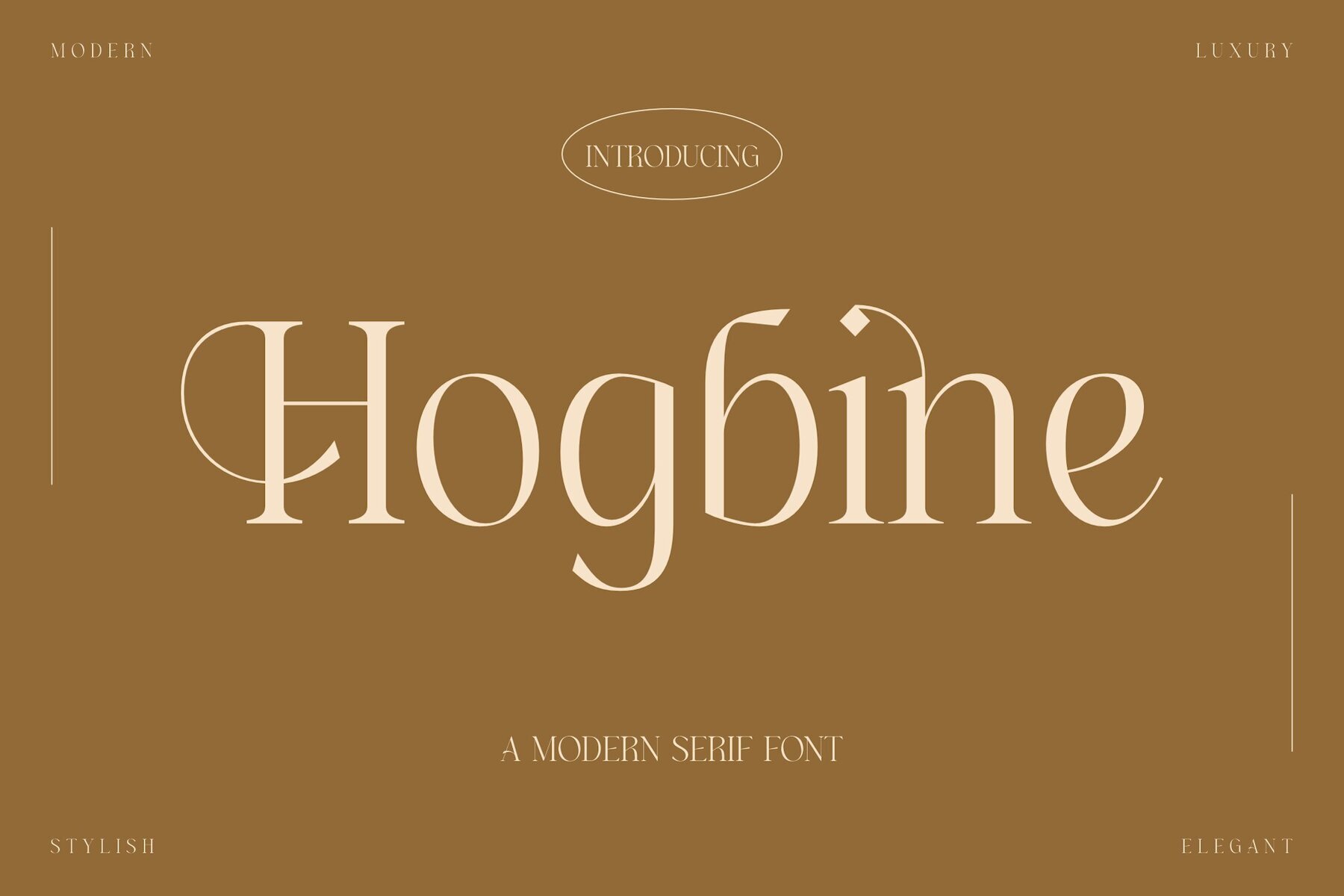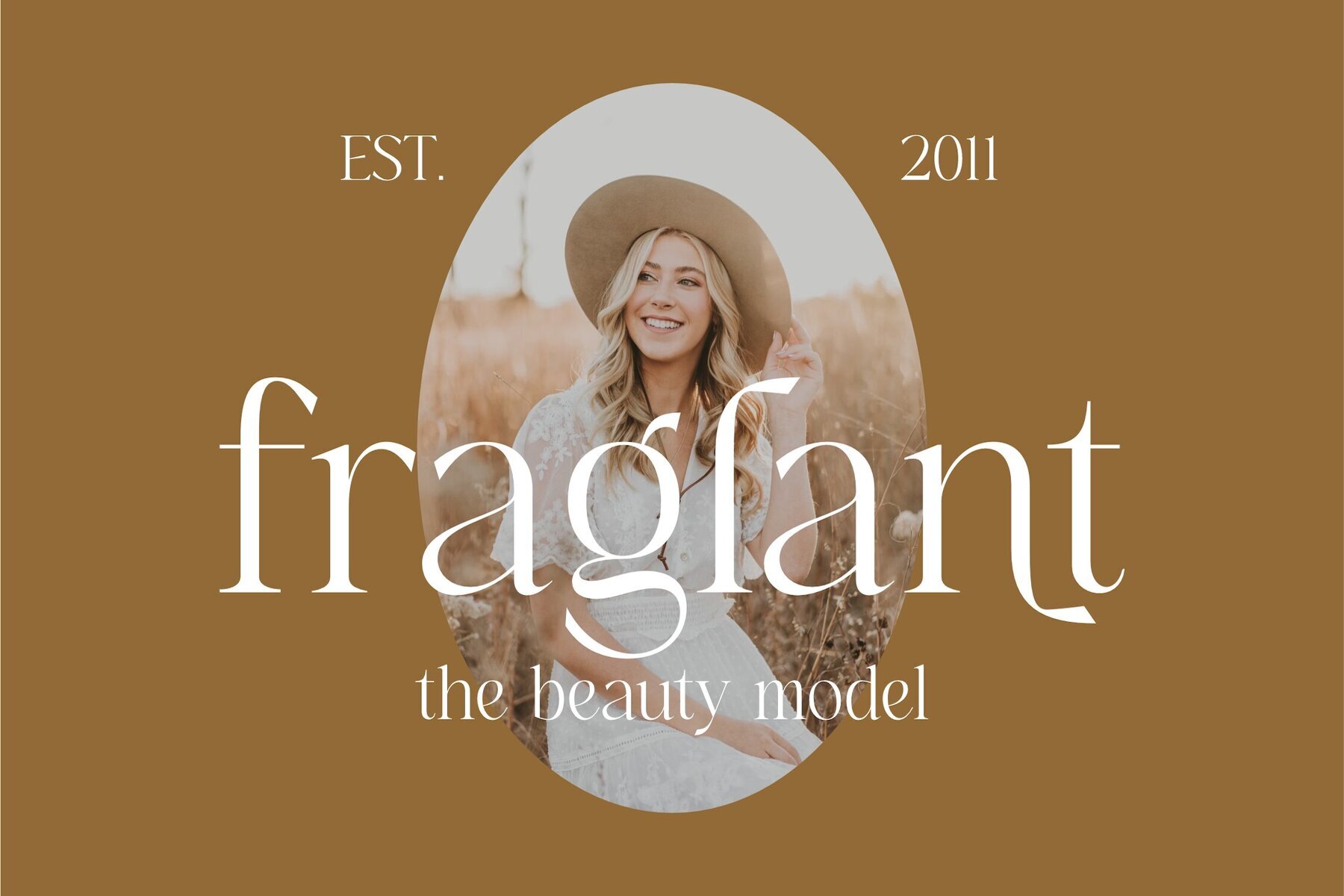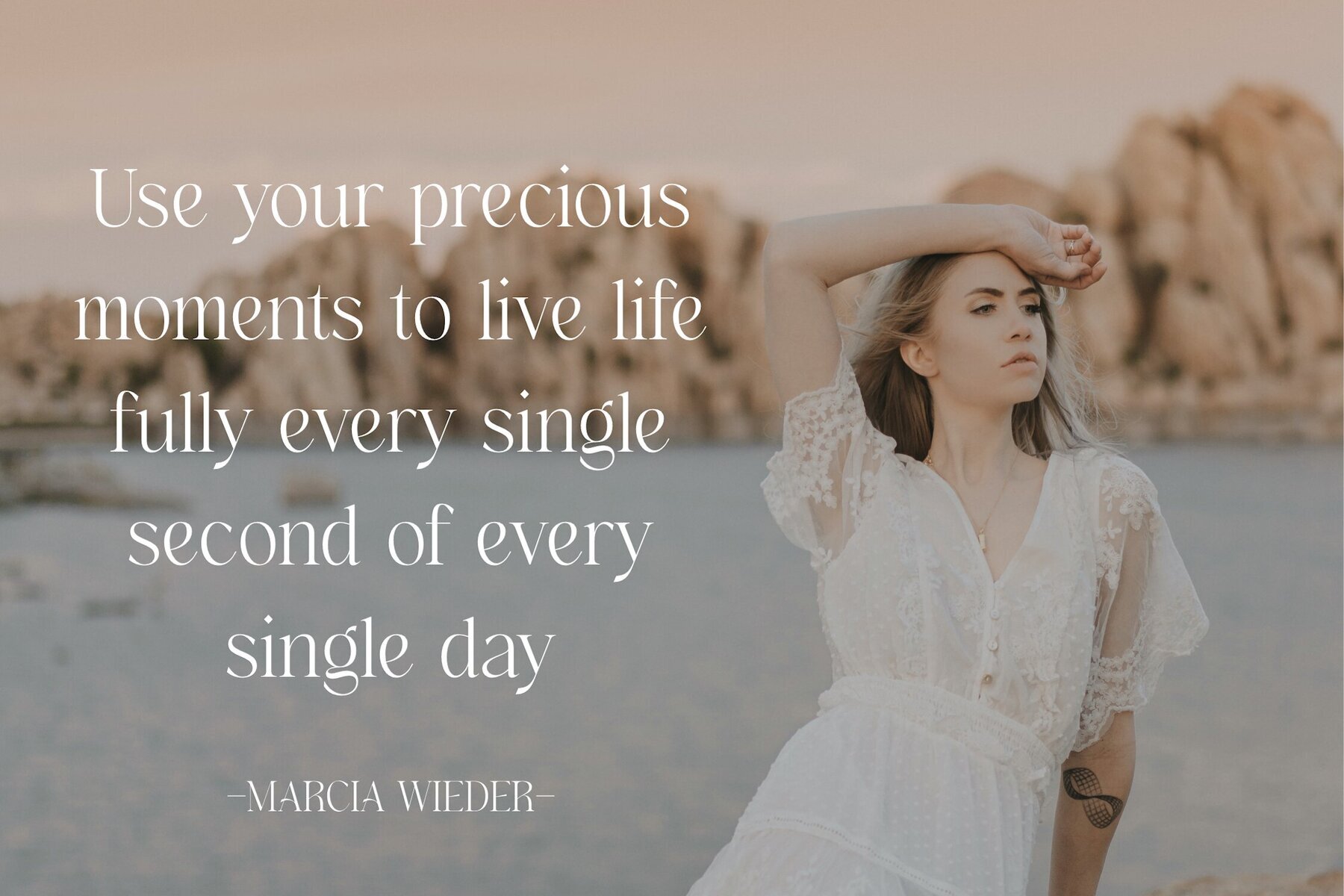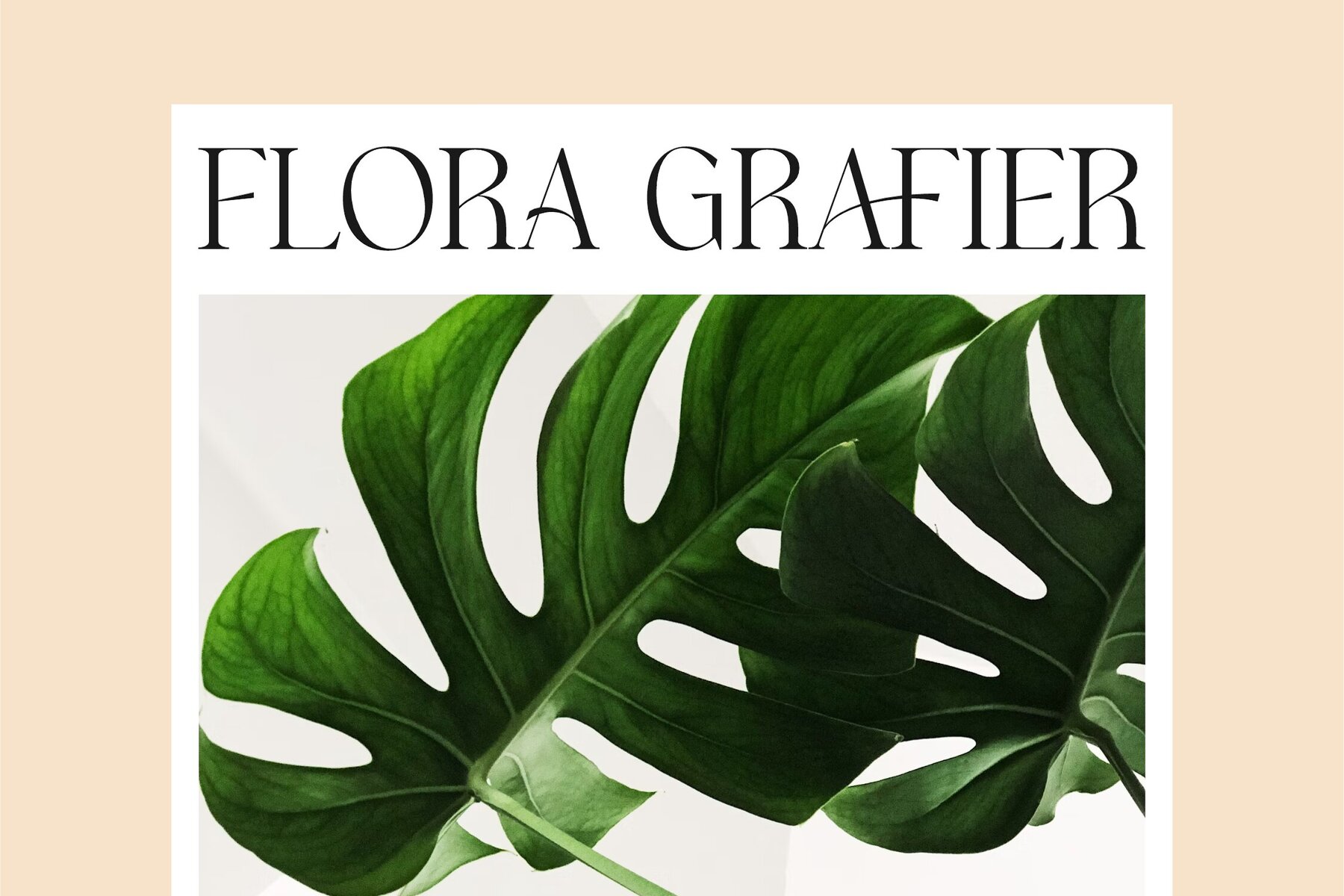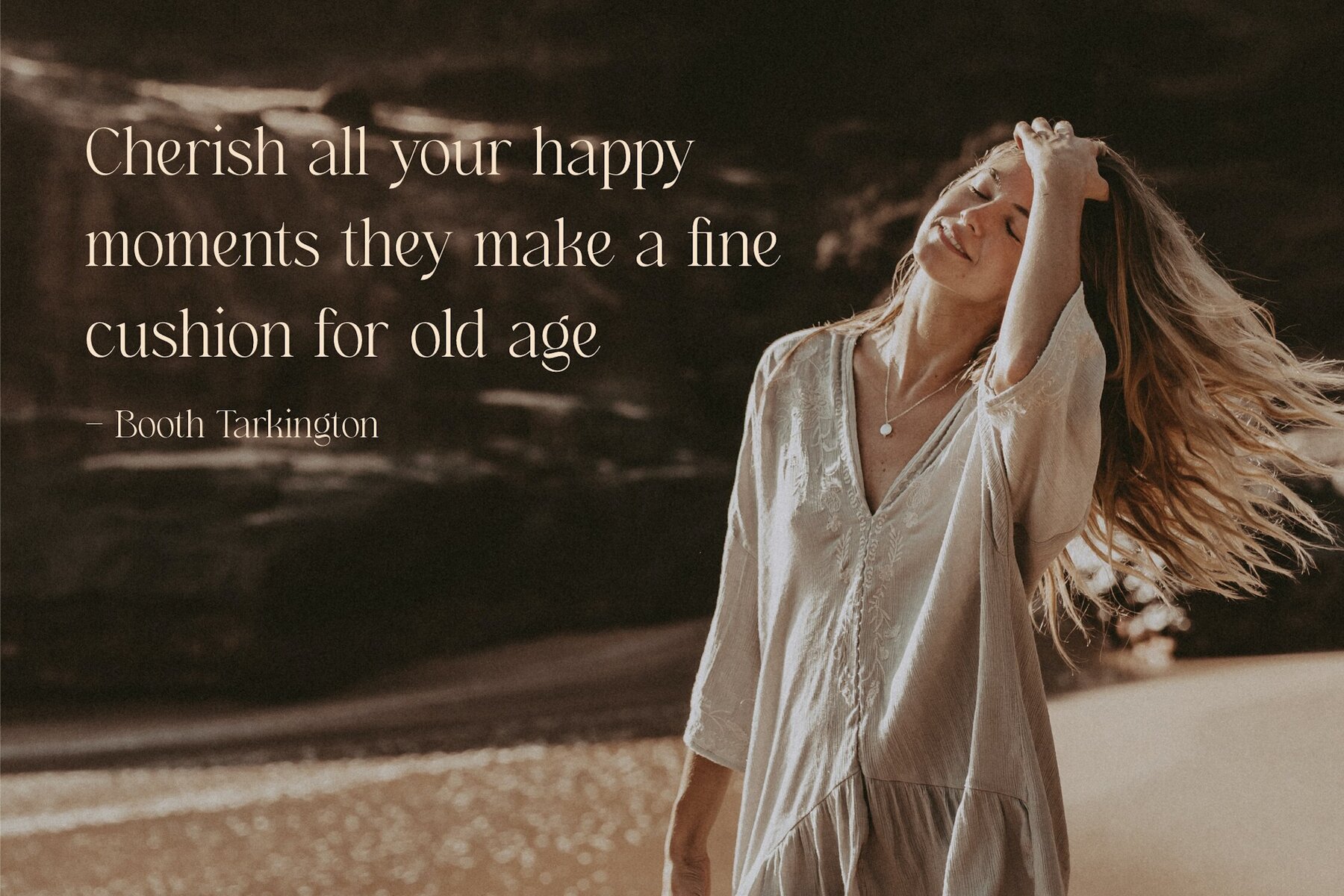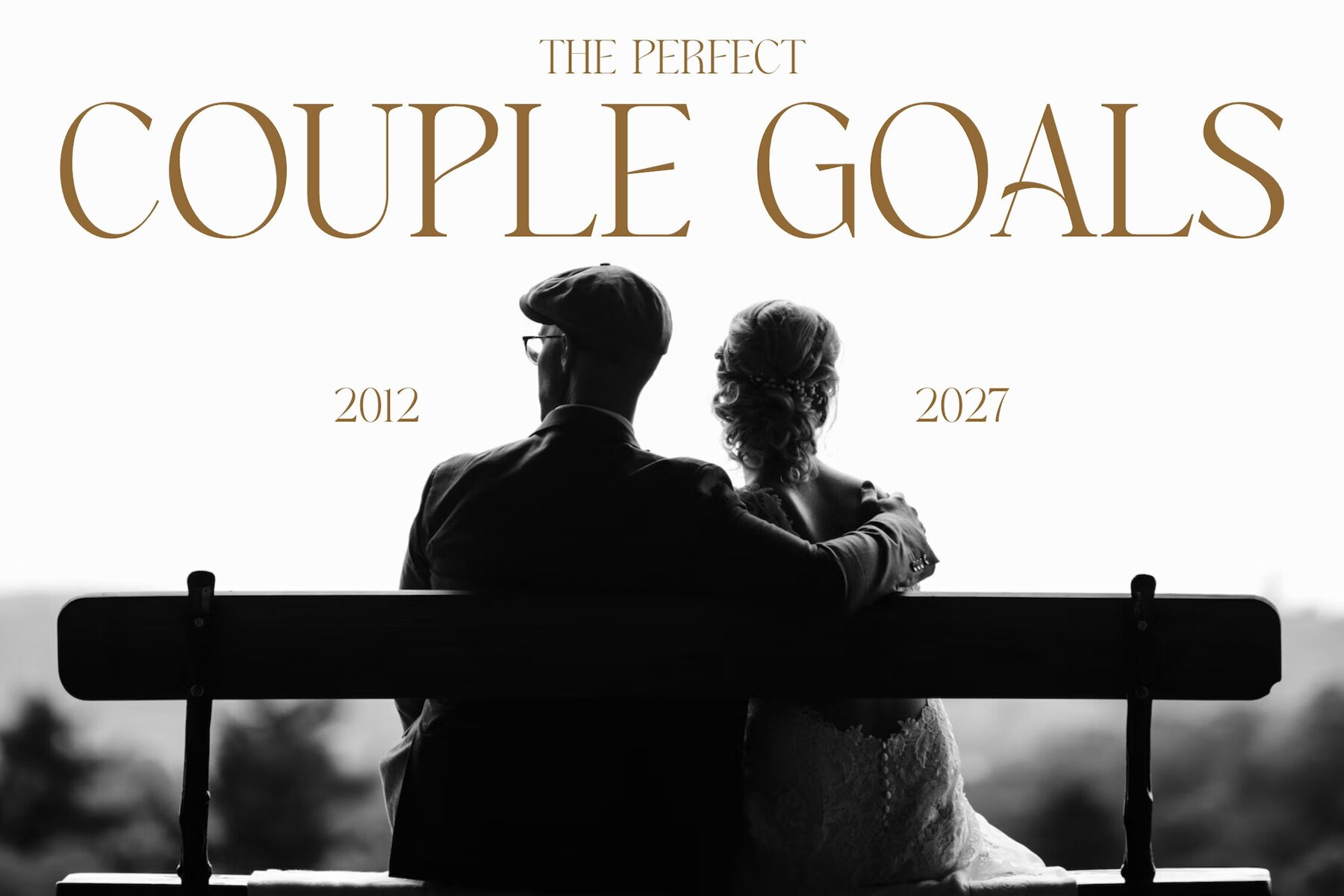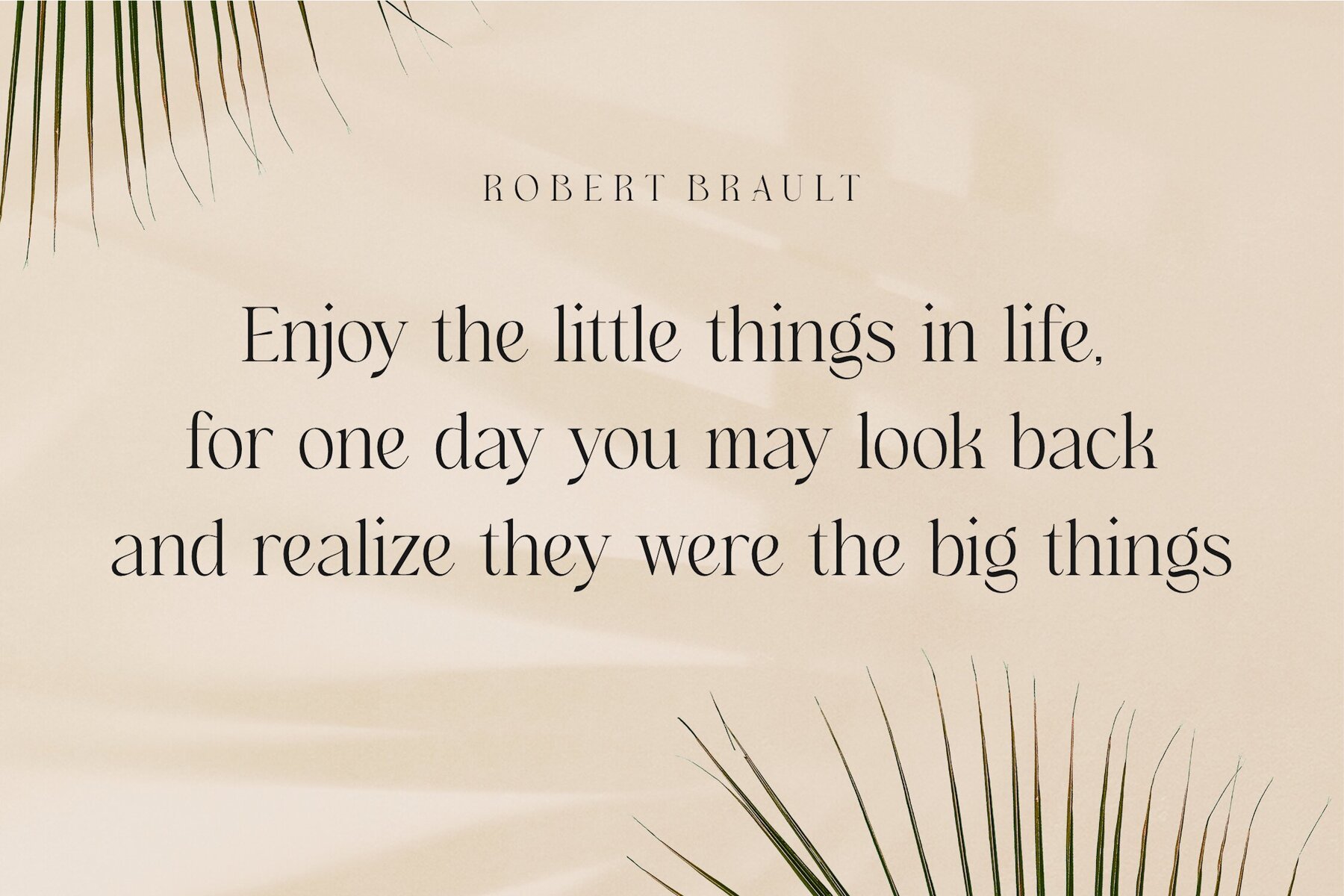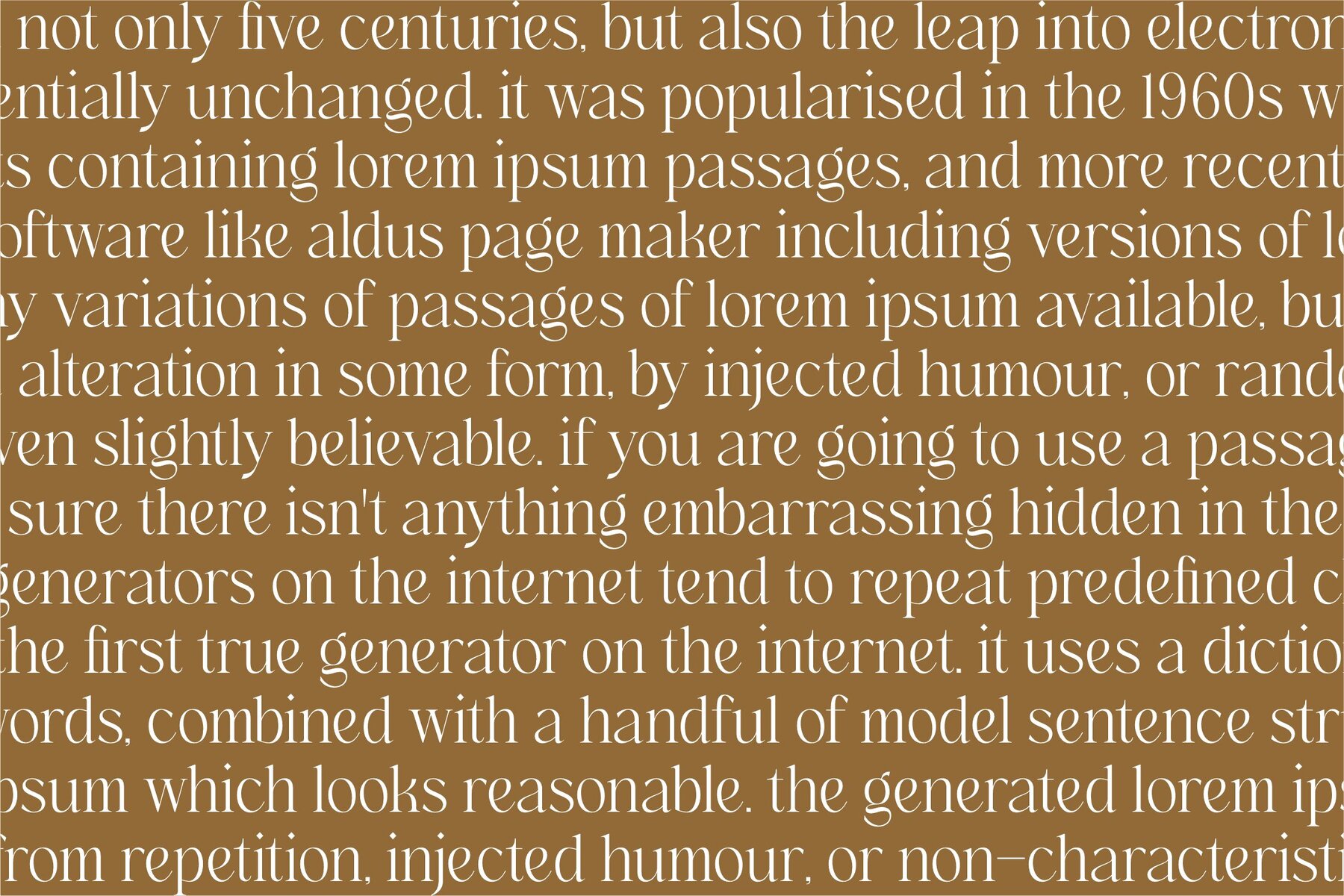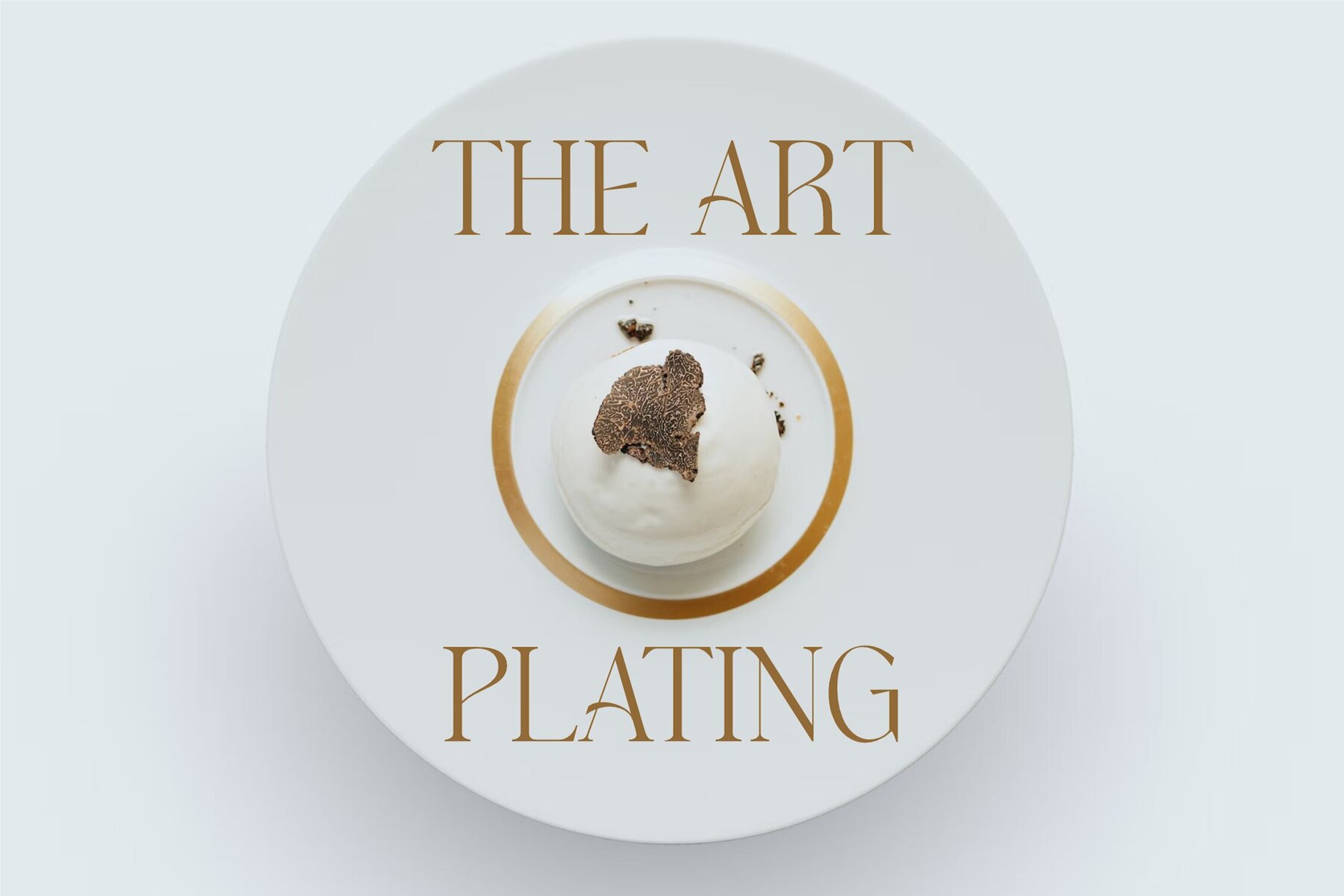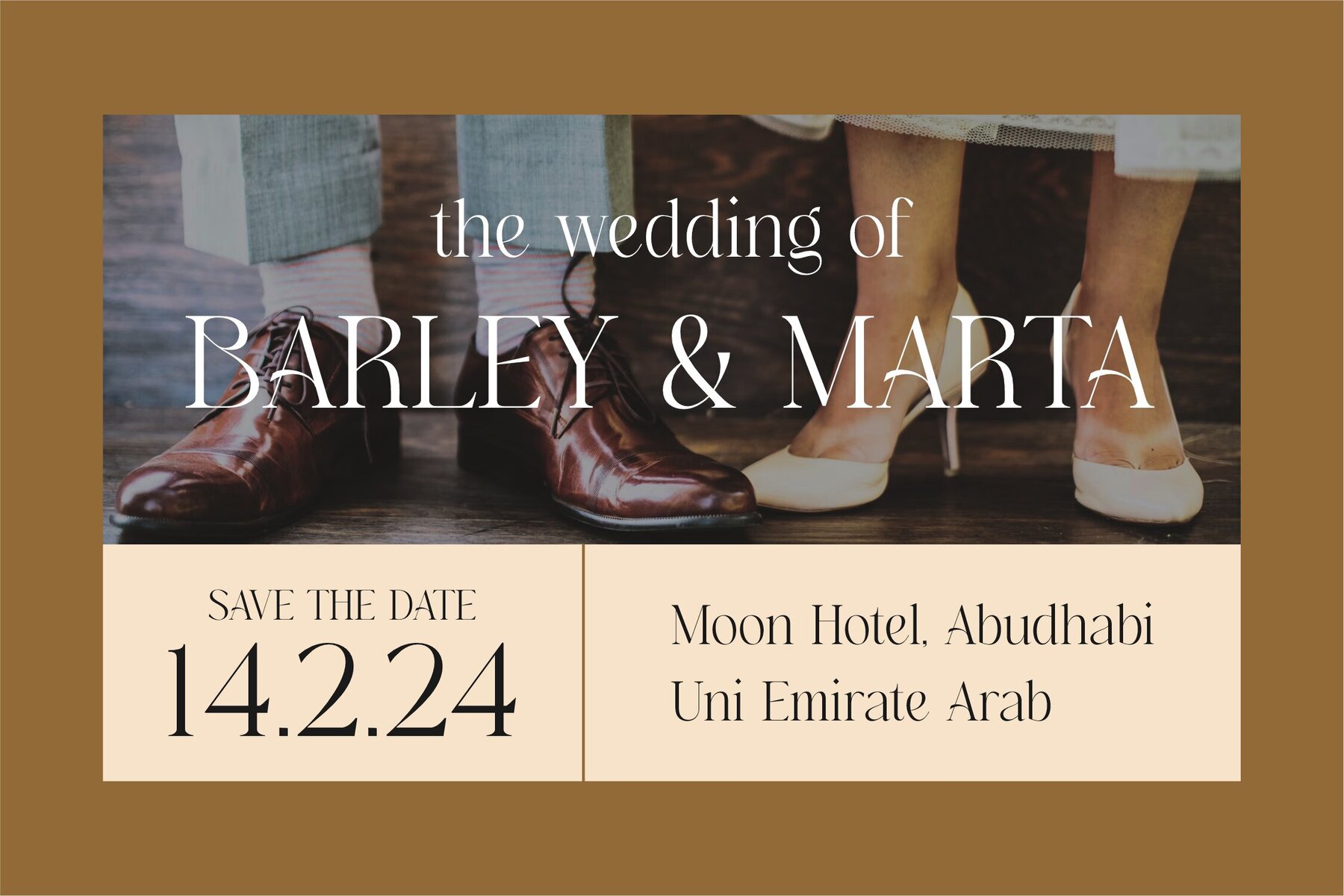
Hogbine Font
Introducing the Hogbine Typeface, a creation by Storytype Studio that captures the essence of modern and classic serif design. With its distinctive style and contemporary flair, this typeface is ideal for adding a touch of luxury and sophistication to a variety of projects such as logos, book and movie titles, fashion branding, magazines, clothing, and more.Hogbine Typeface: Elegance Redefined